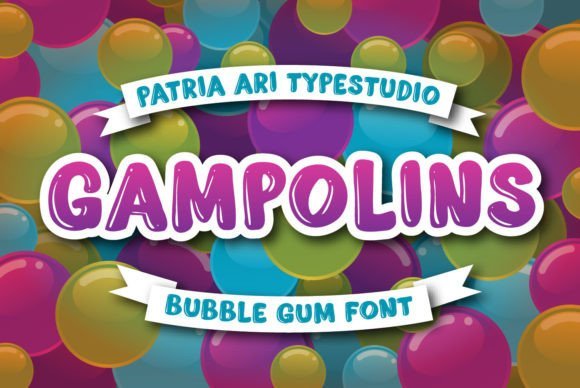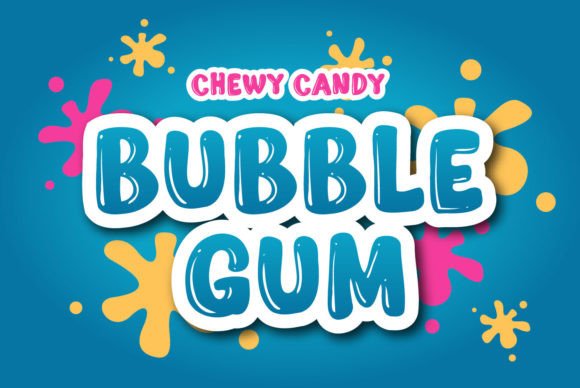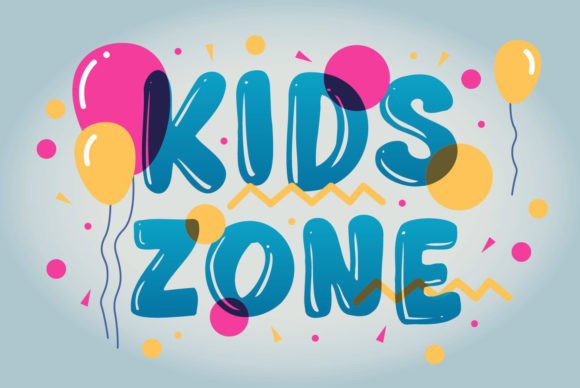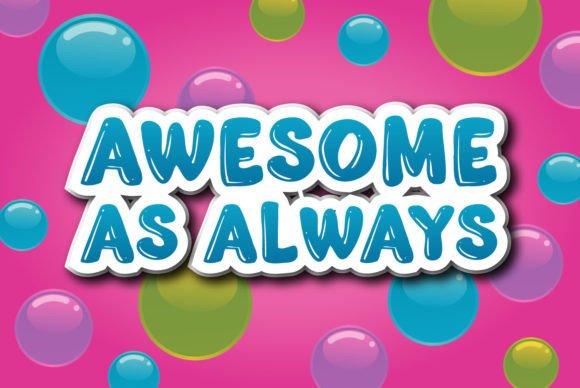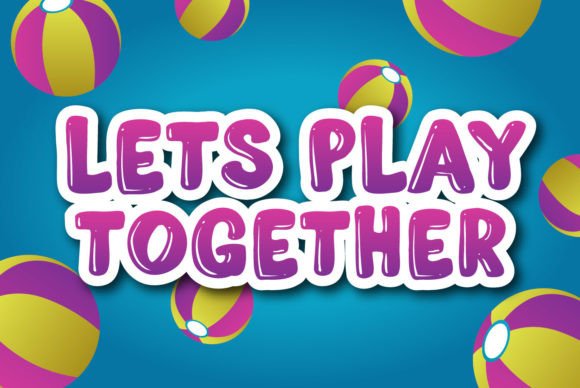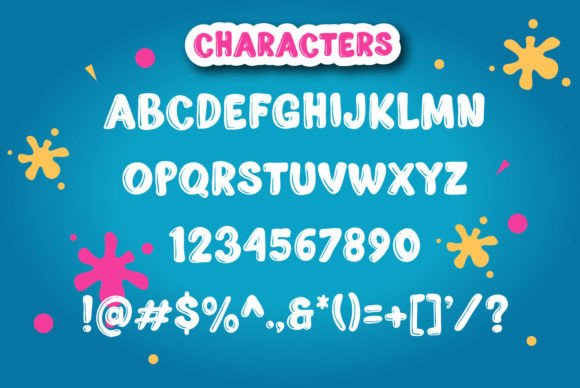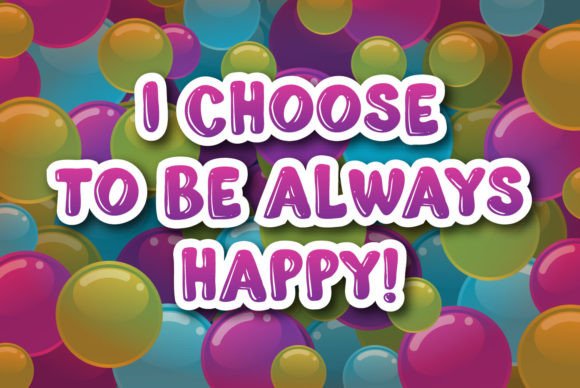
The Power of Unleashing Your Creativity
Have you ever been stuck on a design project, trying to come up with the perfect font to bring your vision to life? You know, that moment when you’re scrolling through font libraries and nothing seems to capture the essence of your creative idea. Well, we’ve got some good news for you!
Meet Gampolins Font, a bubbly and lively display font that’s specifically designed to make your creations stand out in no time. With Gampolins Font, you can add a touch of whimsy and personality to your designs, from digital art to social media graphics and beyond. Whether you’re a seasoned designer or just starting out, Gampolins Font is an invaluable tool that will help you take your designs to the next level.
Gampolins Font Key Features
- Font Family: Gampolins is a unique, hand-drawn font family designed to evoke a sense of whimsy and playfulness.
- Character Set: Includes a comprehensive set of characters, including uppercase and lowercase letters, numbers, punctuation marks, and special characters.
- Unique Characteristics: Features a distinctive, hand-drawn style with varying line widths, subtle texture, and organic feel, making it perfect for adding a touch of personality to designs.
- Language Support: Supports a wide range of languages, including Latin-based alphabets, making it a versatile choice for multilingual designs.
Gampolins Font Review
Overall, I was quite impressed with the Gampolins Font. Here’s a breakdown of what I liked and didn’t like:
- The Gampolins Font has a unique and quirky feel that’s perfect for creative projects.
- It’s highly legible, making it suitable for body text and even headlines.
- The font has a wide range of weights and styles, giving designers plenty of options to choose from.
- It’s highly customizable, allowing designers to adjust the font’s settings to fit their specific needs.
- The font may not be suitable for formal or professional projects due to its playful nature.
- Some characters may not be available in certain languages, which could be a limitation for global projects.
- The font’s uniqueness can also be a drawback, as it may not be suitable for projects where a more traditional font is desired.
The Gampolins Font is a great addition to any designer’s toolkit. While it may have some limitations, its unique feel and high customizability make it a great choice for creative projects. I would definitely recommend it for designers looking to add a bit of personality to their work.
Tips: Use Gampolins Font for headings and titles to add a touch of elegance to your design.
Tips: Use Gampolins Font in combination with bold lines and geometric shapes to create a modern and sleek design.
Tips: Use Gampolins Font for headings and titles to add a touch of sophistication to your presentation or document.
Gampolins Font is ideal for:
Headings and titles
Branding and logos
Infographics and data visualizations
Modern and sleek designs